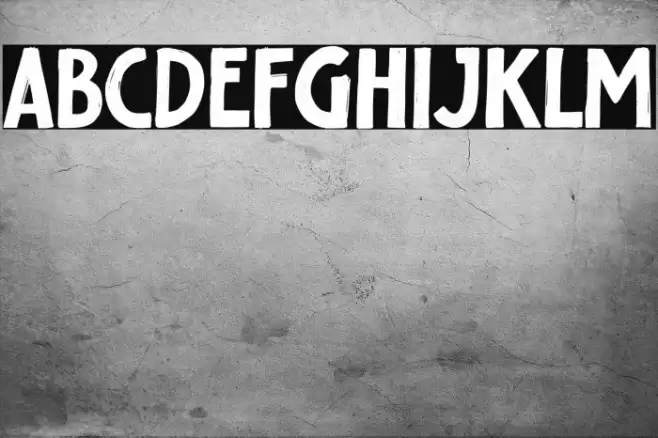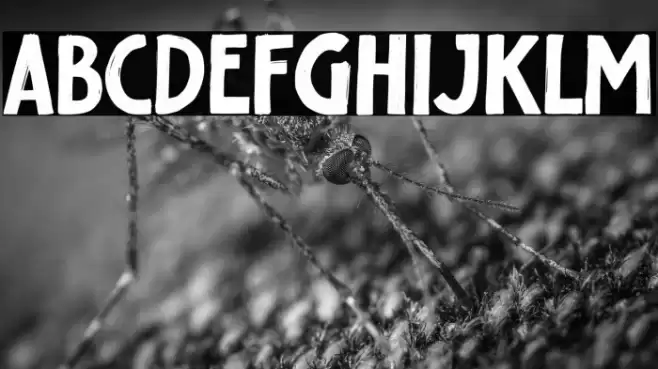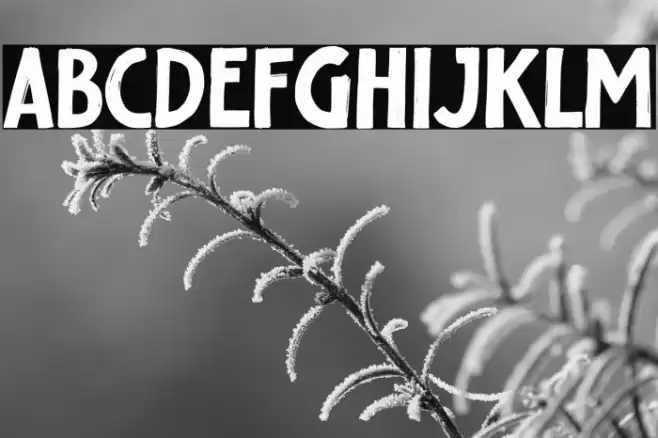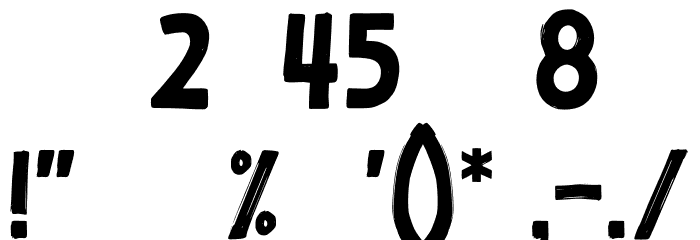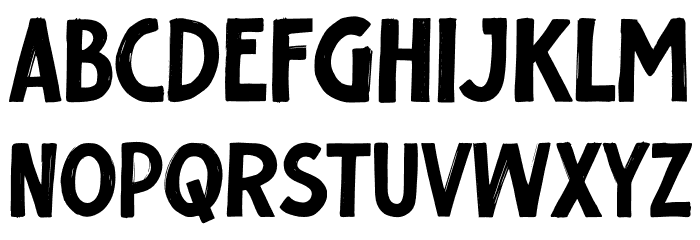
Heran Font
Heran Description
This font exhibits a bold and expressive style with a hand-drawn appearance. The characters are slightly irregular, adding a playful and artistic touch. The uppercase letters are prominent and well-defined, while the lowercase letters maintain a consistent style. The numbers are bold and easily readable, complementing the overall design. Special characters are creatively styled, maintaining the font's unique aesthetic. This font's distinctiveness makes it suitable for projects that require a personal and informal touch.
A bold, hand-drawn font with an artistic and playful style from Uncategorized fonts.
- Font: Heran
- Proposed Projects: Ideal for posters, branding, children's books, and creative projects that require a personal touch.